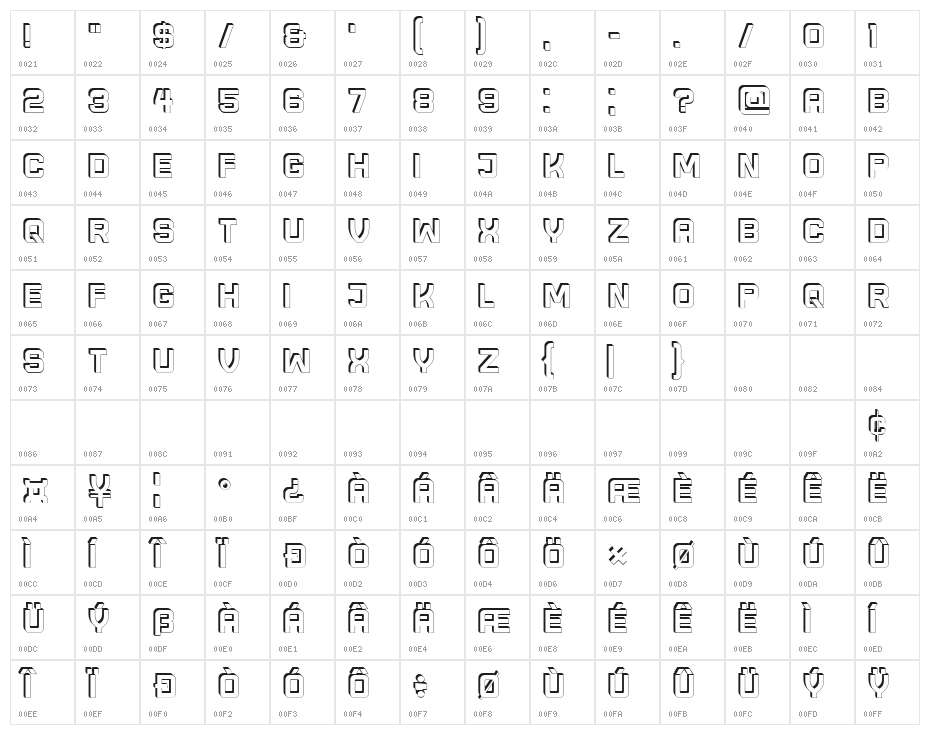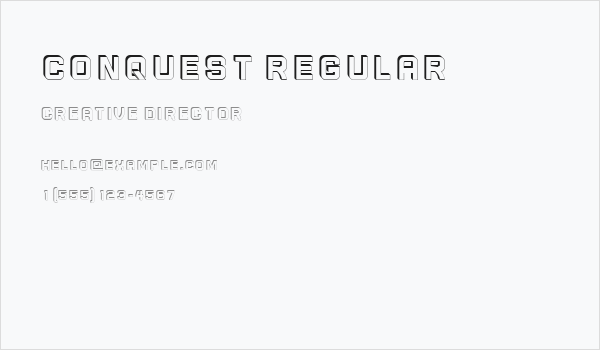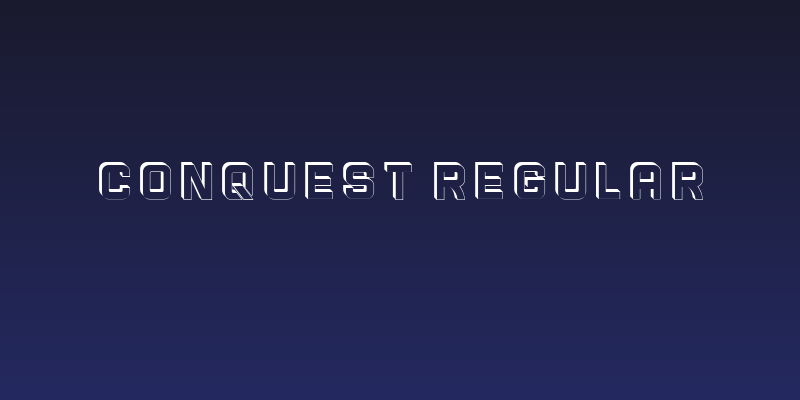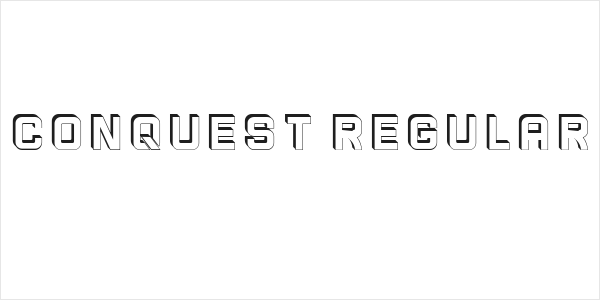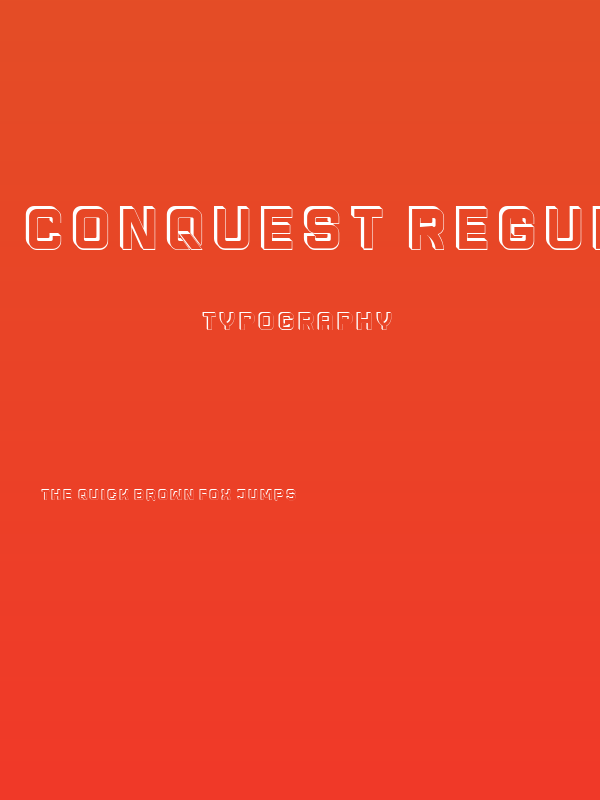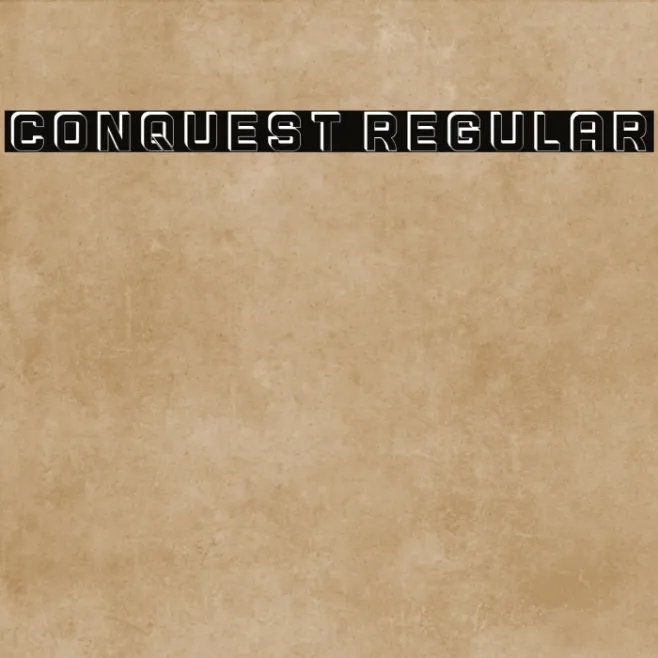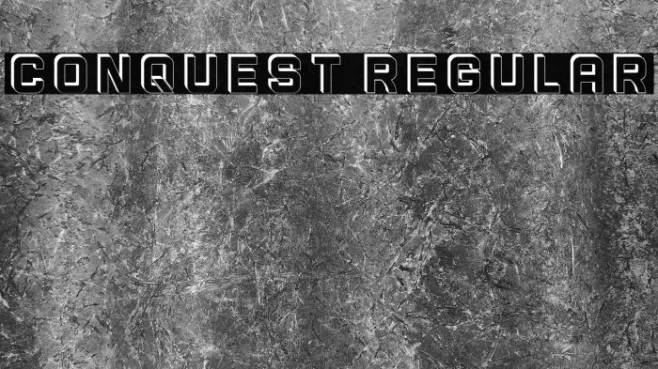
Conquest Regular Font
Conquest Regular Description
This font features a bold, geometric design with a three-dimensional effect, achieved through the use of shadowing and outlines. The characters are uppercase and exhibit a strong, industrial aesthetic, making them ideal for impactful design projects. The font's structure is clean and precise, with consistent stroke widths that enhance its modern appeal. The numerals and special characters maintain the same stylistic approach, ensuring uniformity across all elements. This font is particularly suitable for projects that require a futuristic or tech-inspired look.
| Proposed Projects | Ideal for branding, posters, video game graphics, and tech-related designs. |